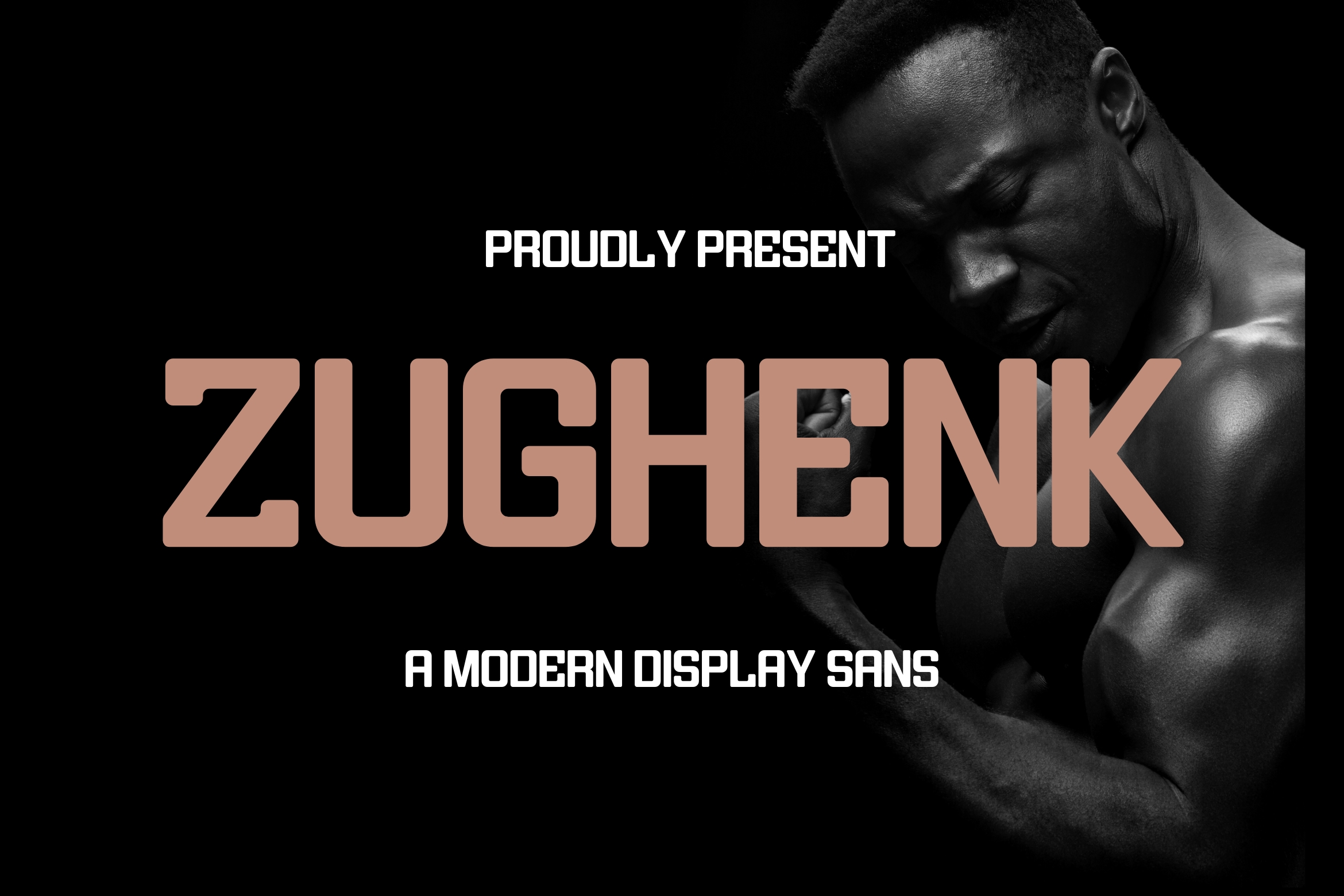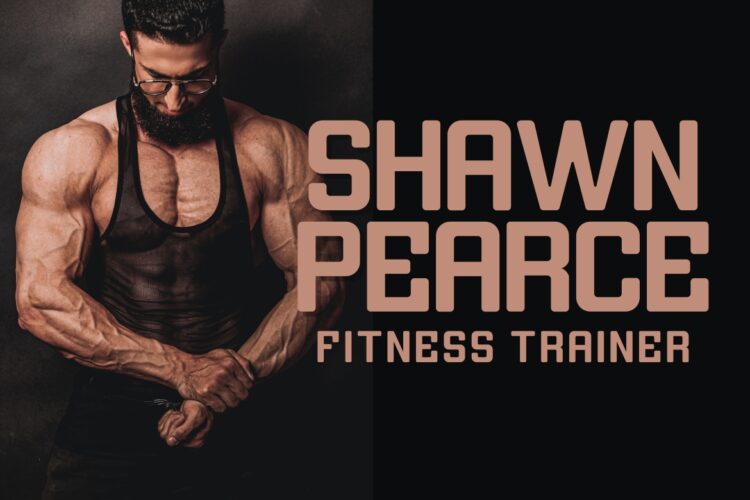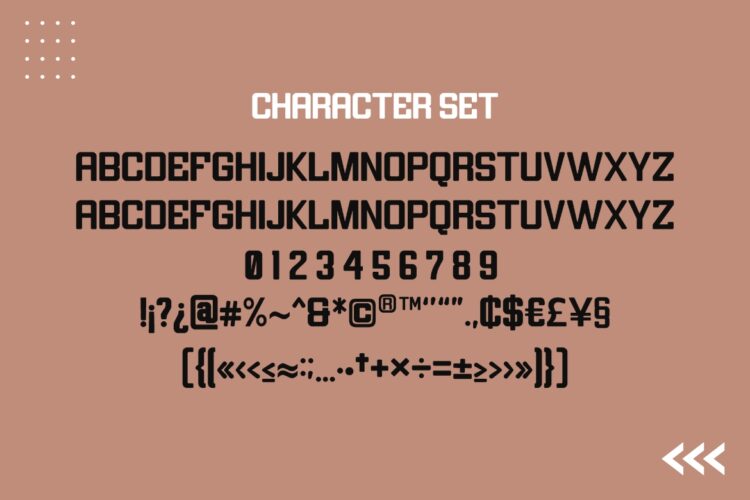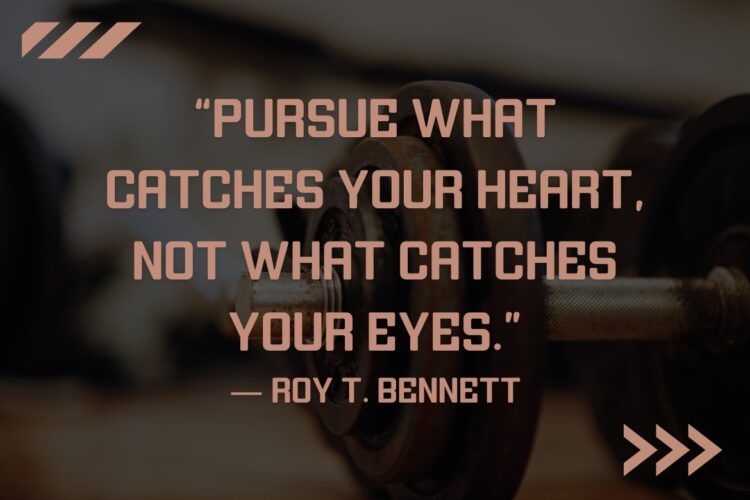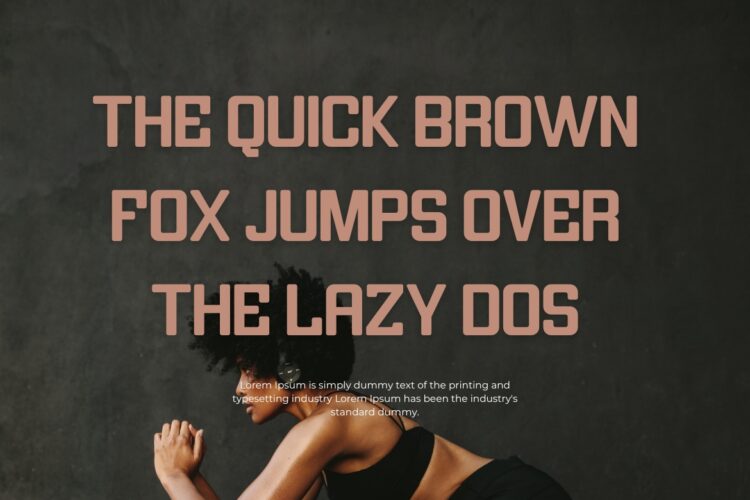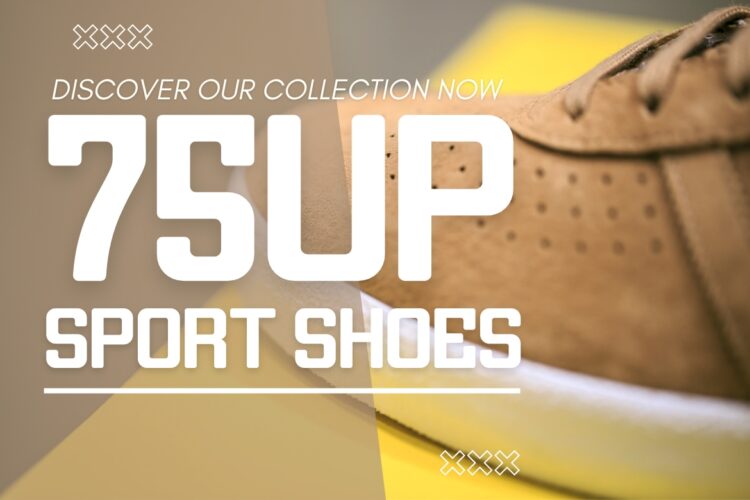
Introducing Zughenk – Modern Display Sans Serif. Zughenk is a modern and simple font, best used as a display for headings, logos, branding, magazines, product packaging and invitations.
Zughenk – Modern Display Sans